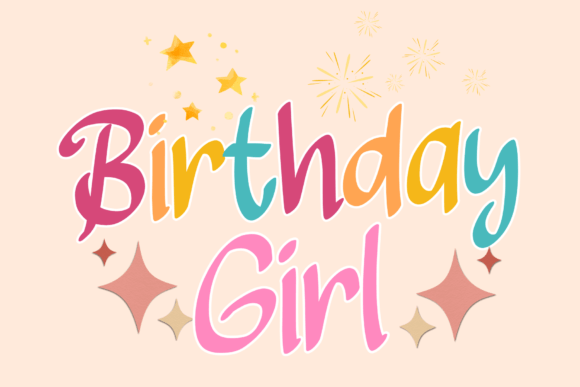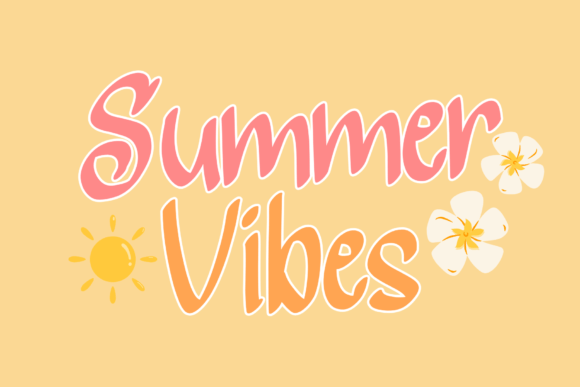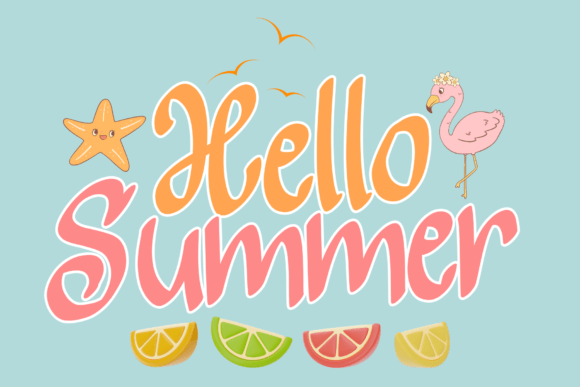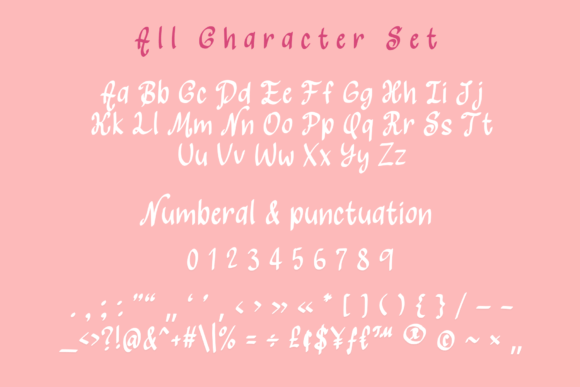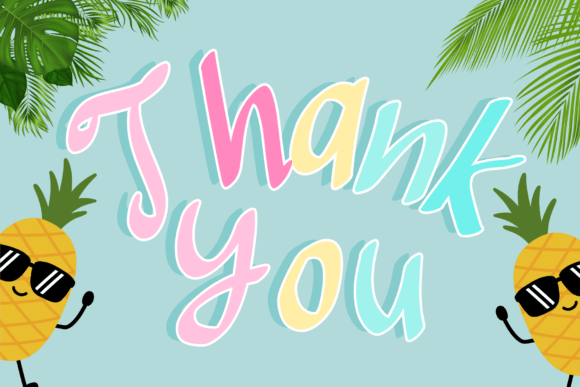
Baby Summer Font: The Perfect Addition to Your Design Projects
Are you looking for a font that embodies playfulness and authenticity? Look no further than Baby Summer Font! This adorable handwritten font is perfect for a variety of design projects, from blog posts and logos to invitations and greeting cards. In this article, we’ll explore the features and benefits of Baby Summer Font, and why it’s a must-have for designers and crafters.
What is Baby Summer Font?
Baby Summer Font is a cute and charming handwritten font that is designed to add a touch of playfulness and whimsy to your designs. Its authentic and carefree feel makes it perfect for a wide range of projects, from personal to commercial use. Whether you’re creating a blog post, logo, or invitation, Baby Summer Font is sure to make your design stand out.
Features of Baby Summer Font
Baby Summer Font has several features that make it a great choice for designers and crafters. Some of its key features include:
- Playful and Authentic: Baby Summer Font has a playful and authentic feel that is perfect for designs that require a personal touch.
- Handwritten: This font is a handwritten font, which gives it a unique and personal feel.
- Versatile: Baby Summer Font can be used for a wide range of design projects, from blog posts and logos to invitations and greeting cards.
- Easy to Read: Despite its playful feel, Baby Summer Font is easy to read, making it perfect for body text and headlines.
Benefits of Using Baby Summer Font
There are many benefits to using Baby Summer Font in your design projects. Some of the benefits include:
- Adds a Personal Touch: Baby Summer Font adds a personal touch to your designs, making them more relatable and engaging.
- Perfect for Creative Projects: This font is perfect for creative projects, such as blog posts, invitations, and greeting cards.
- Great for Branding: Baby Summer Font can be used for branding projects, such as logos and business cards, to add a touch of personality to your brand.
Uses of Baby Summer Font
Baby Summer Font can be used for a wide range of design projects, including:
- Blog Posts: Add a personal touch to your blog posts with Baby Summer Font.
- Logos and Branding: Use Baby Summer Font to create a unique and memorable logo for your brand.
- Invitations and Greeting Cards: This font is perfect for creating invitations and greeting cards for special occasions.
- Planners and Photo Albums: Add a touch of personality to your planners and photo albums with Baby Summer Font.
- Decorations: Use Baby Summer Font to create custom decorations, such as wall art and signs.
Baby Summer Font is a cute and charming handwritten font that is perfect for a wide range of design projects. Its playful and authentic feel makes it a great choice for designers and crafters who want to add a personal touch to their designs. With its versatility, ease of use, and range of uses, Baby Summer Font is a must-have for any designer or crafter looking to add a touch of whimsy to their designs.